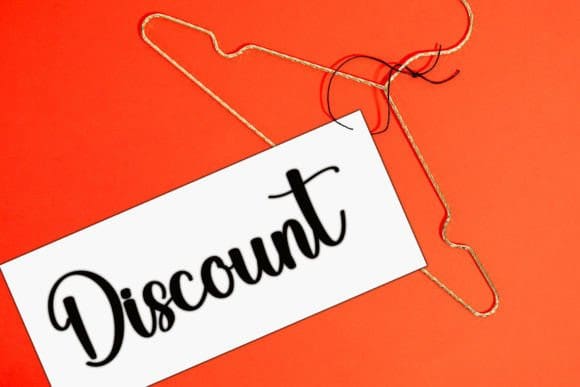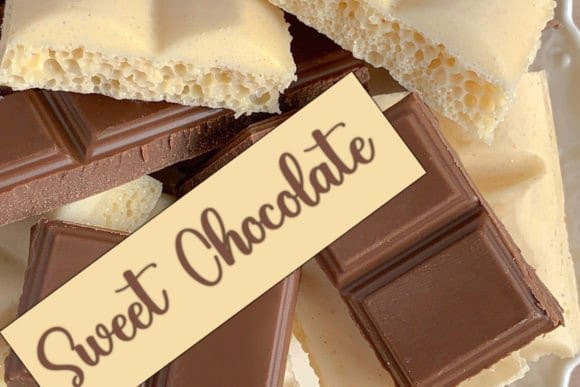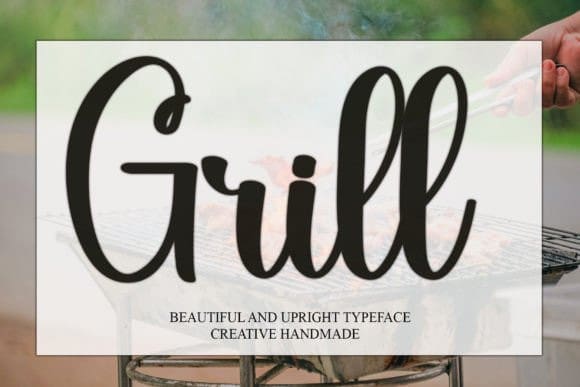
Grill Script Typeface
Grill Script Typeface is a gorgeous and bold handwritten font. It reads as confident and dynamic and can add tons of nostalgic character to your designs.